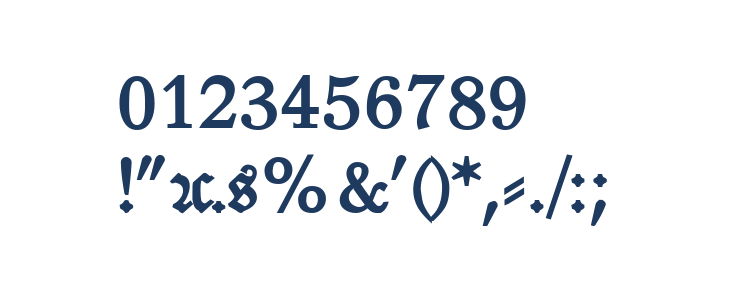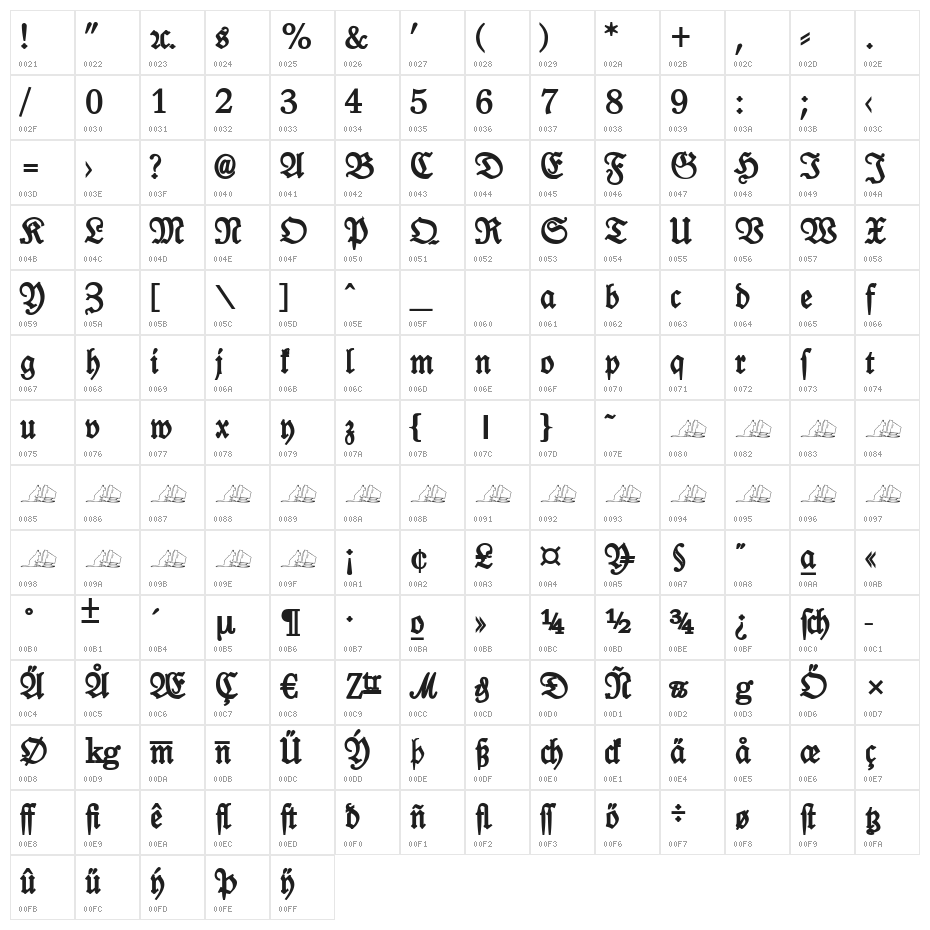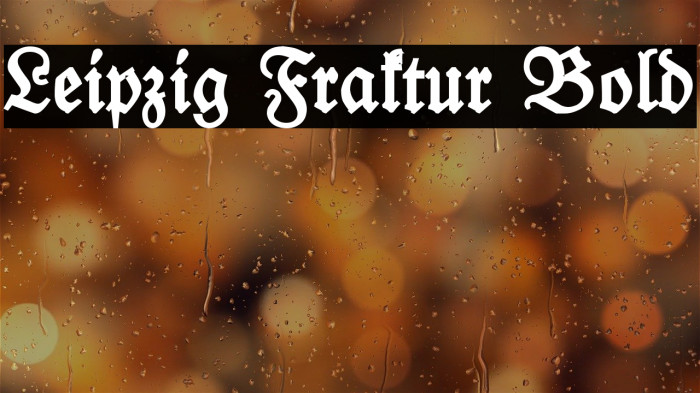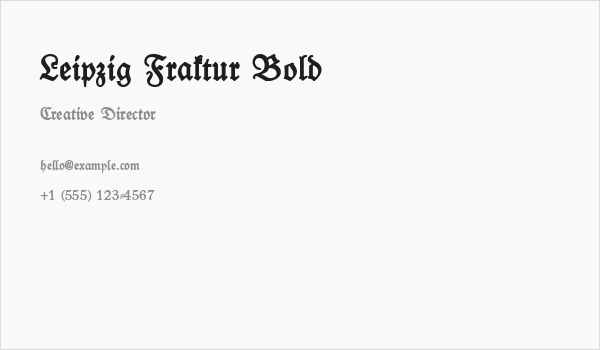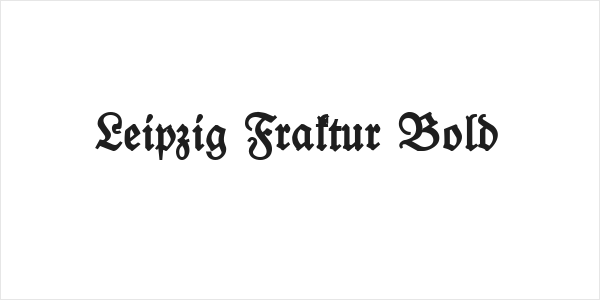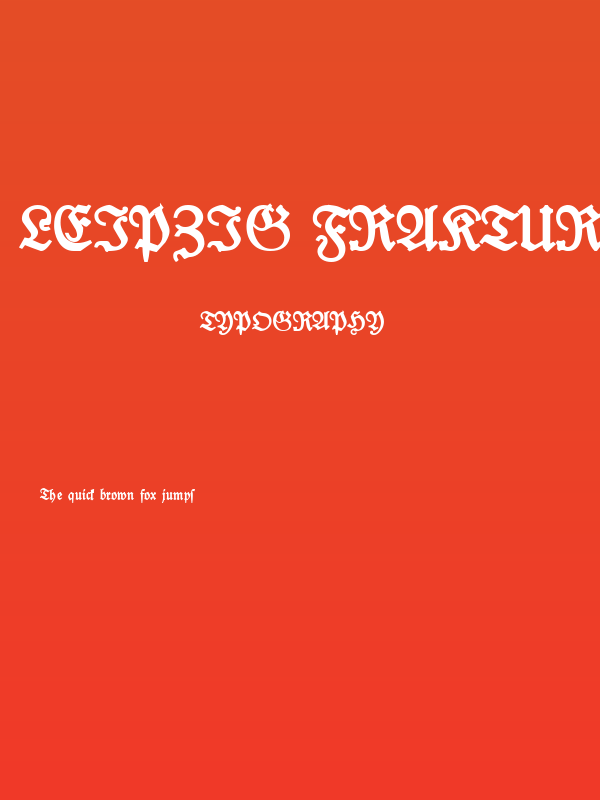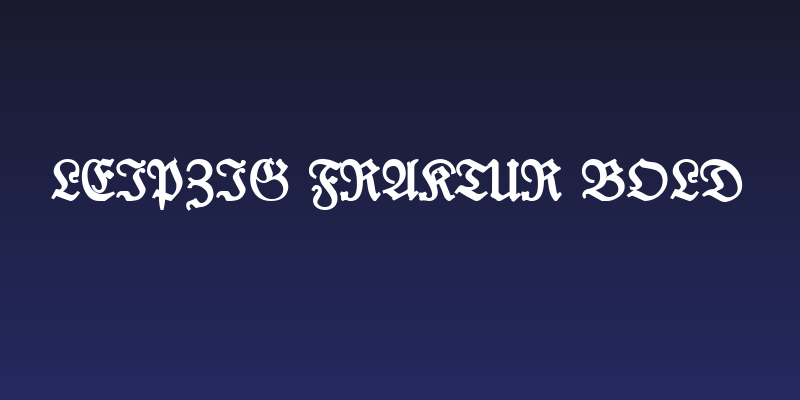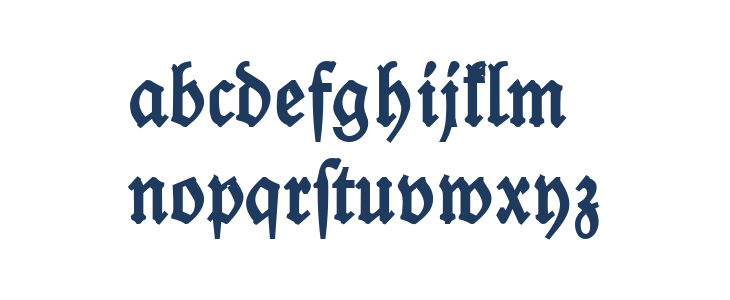
Leipzig Fraktur Bold Font
Leipzig Fraktur Bold Description
This font is a bold, blackletter typeface with a strong, traditional appearance. It features intricate, angular strokes and elaborate serifs, typical of the Fraktur style. The uppercase letters are ornate and commanding, while the lowercase letters maintain a consistent, flowing style that complements the uppercase. The numbers are bold and clear, with a distinctive old-world charm. Special characters are designed with the same attention to detail, ensuring a cohesive look across all glyphs. This font exudes a sense of history and authority, making it ideal for projects that require a classic, medieval aesthetic.